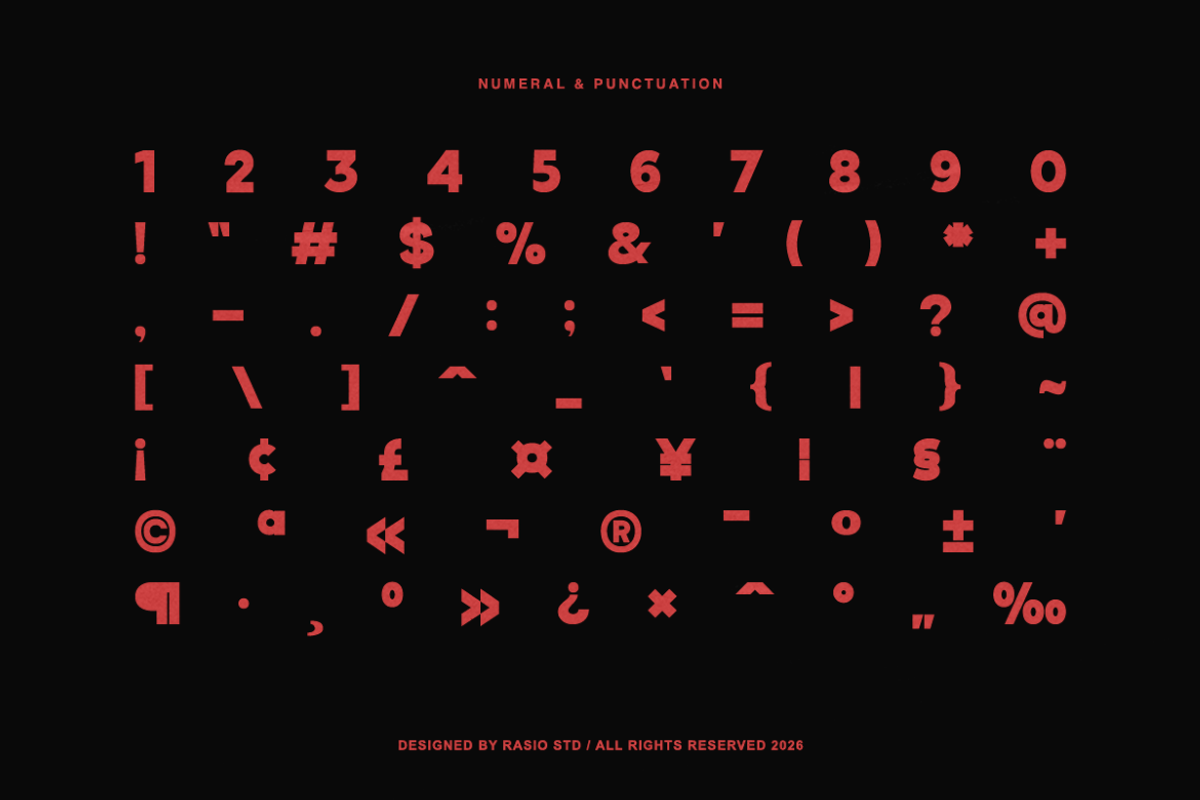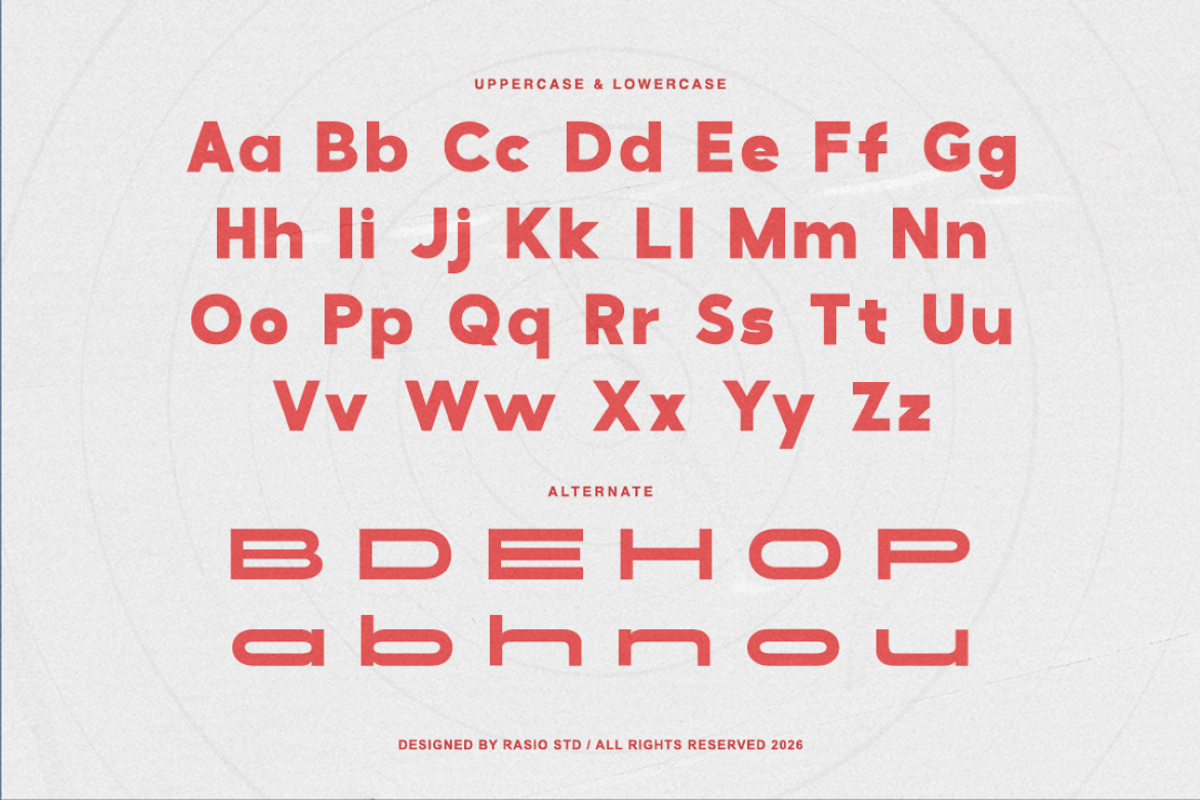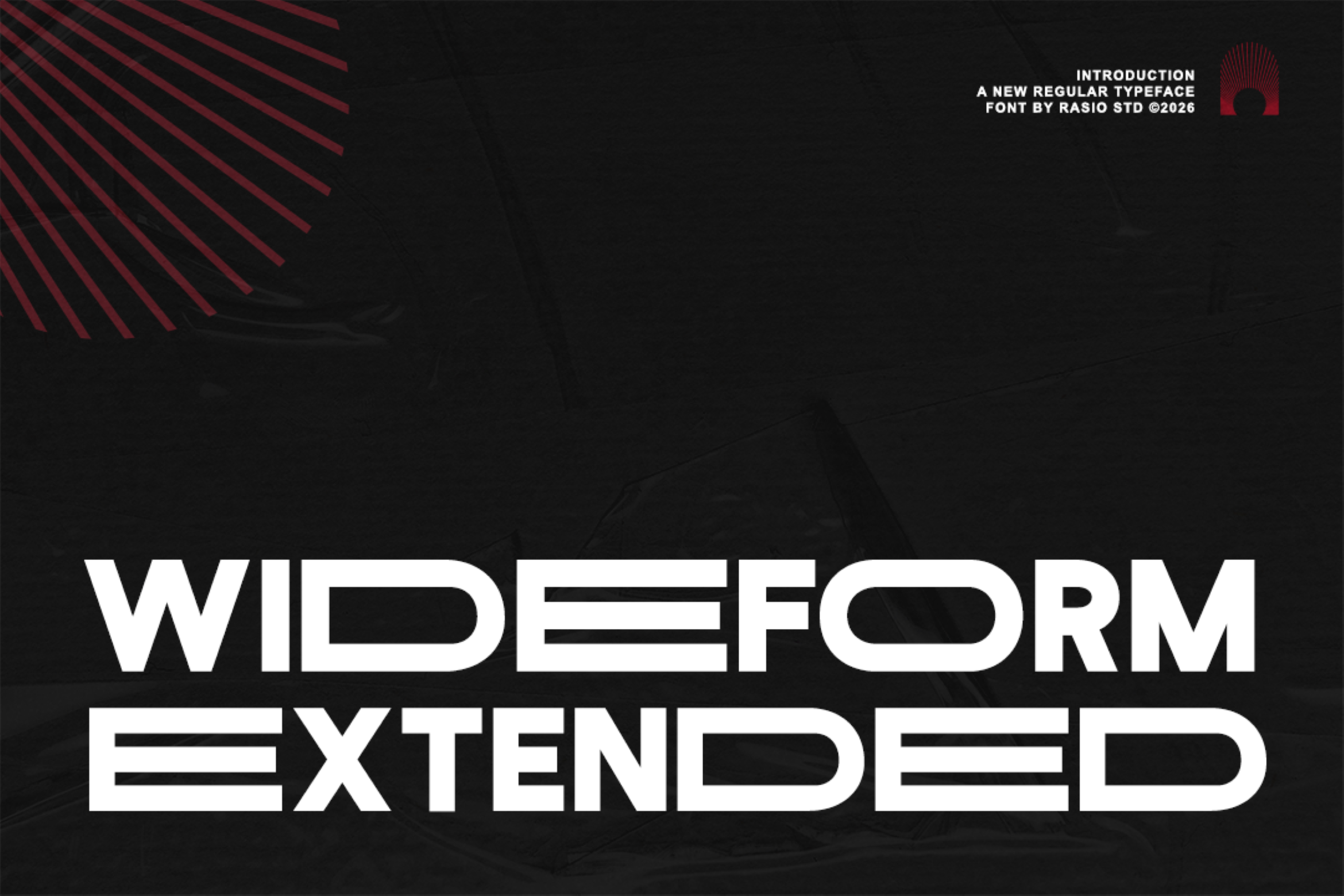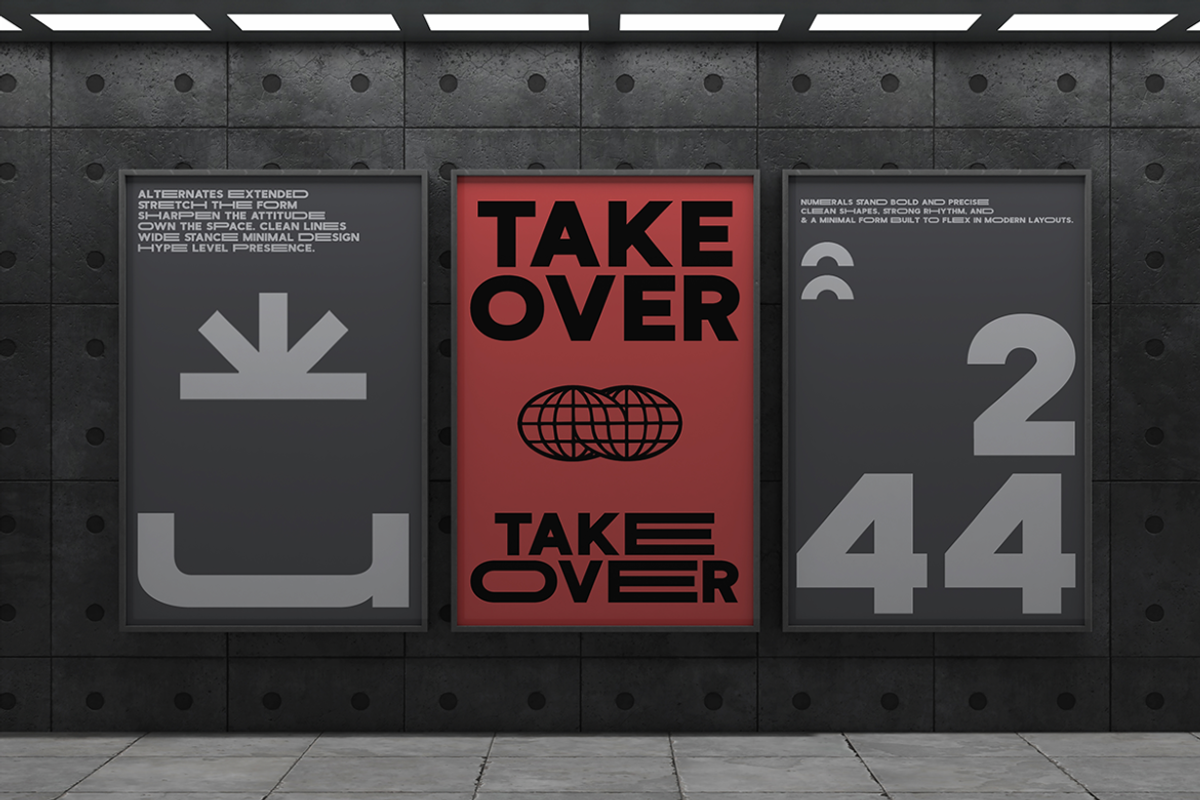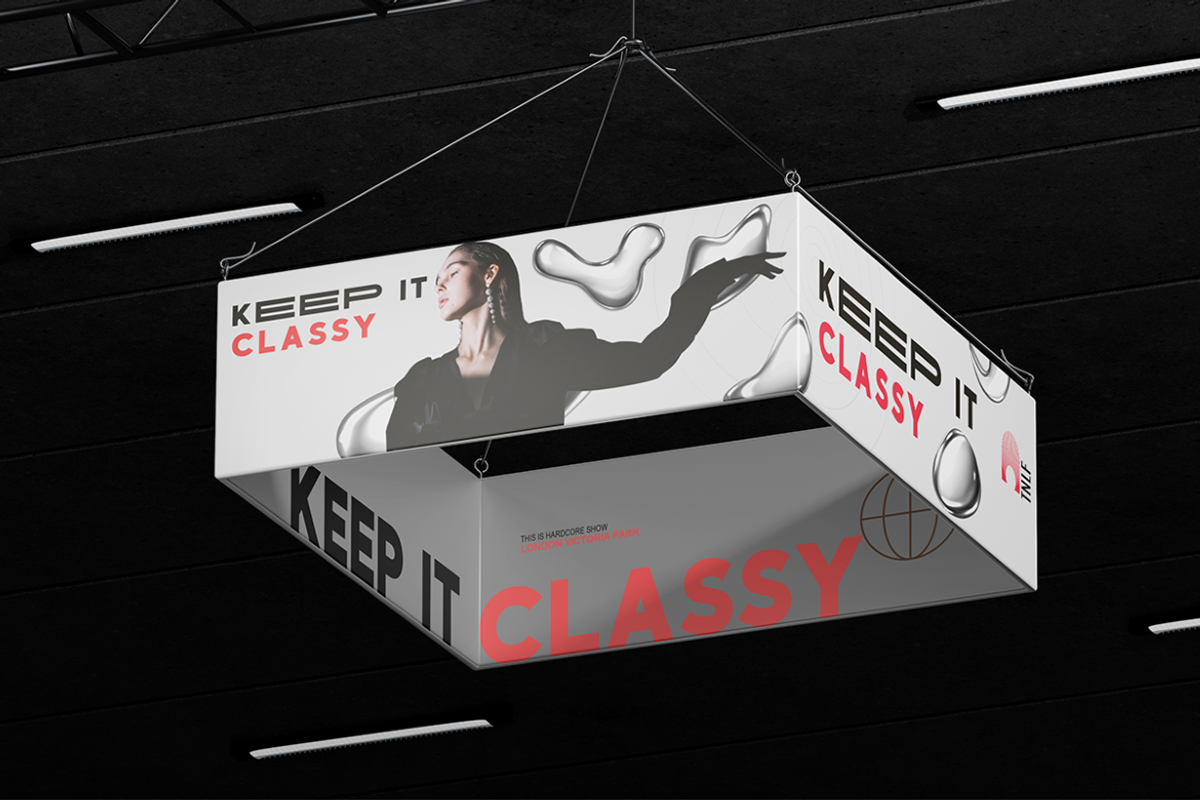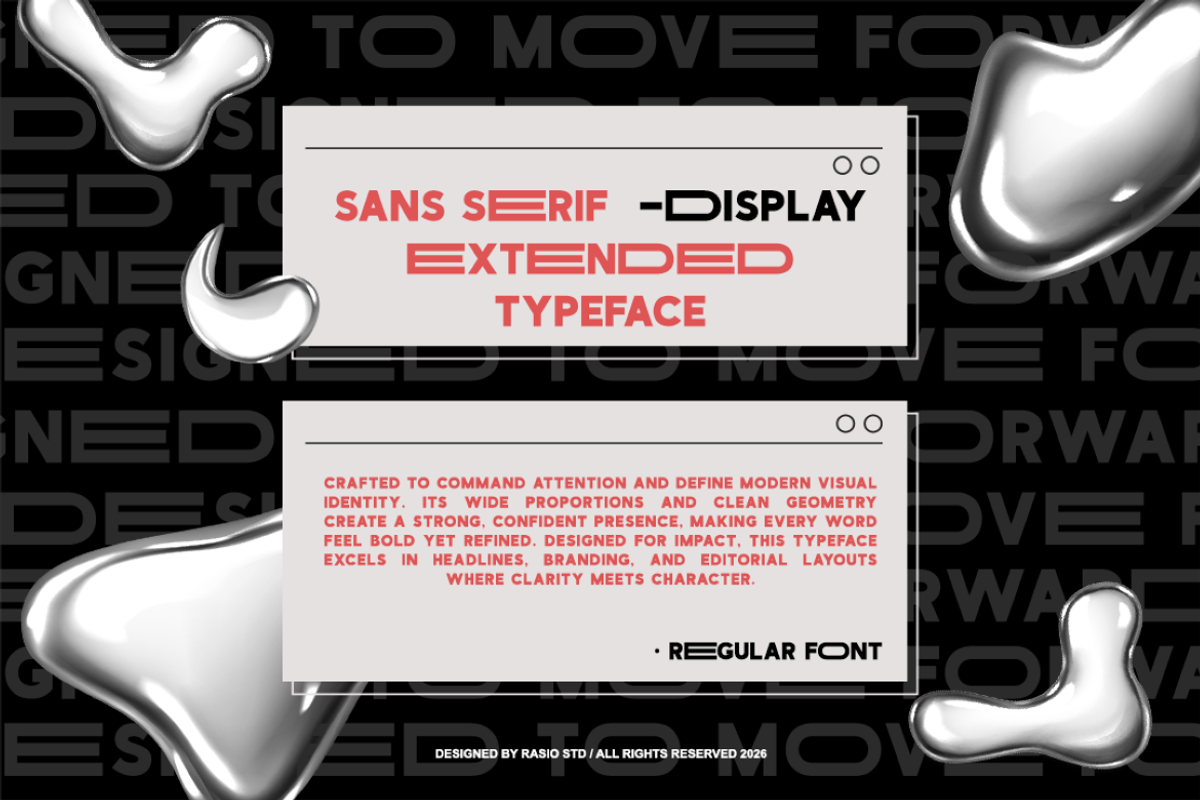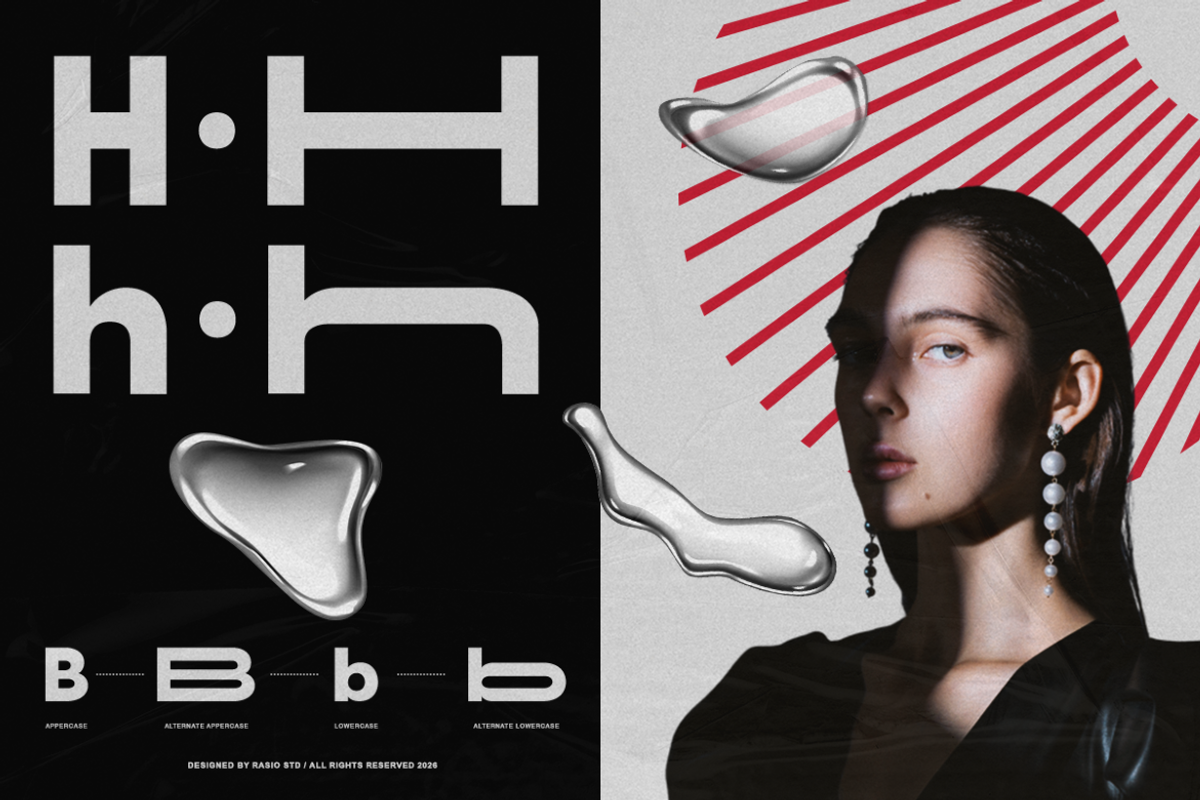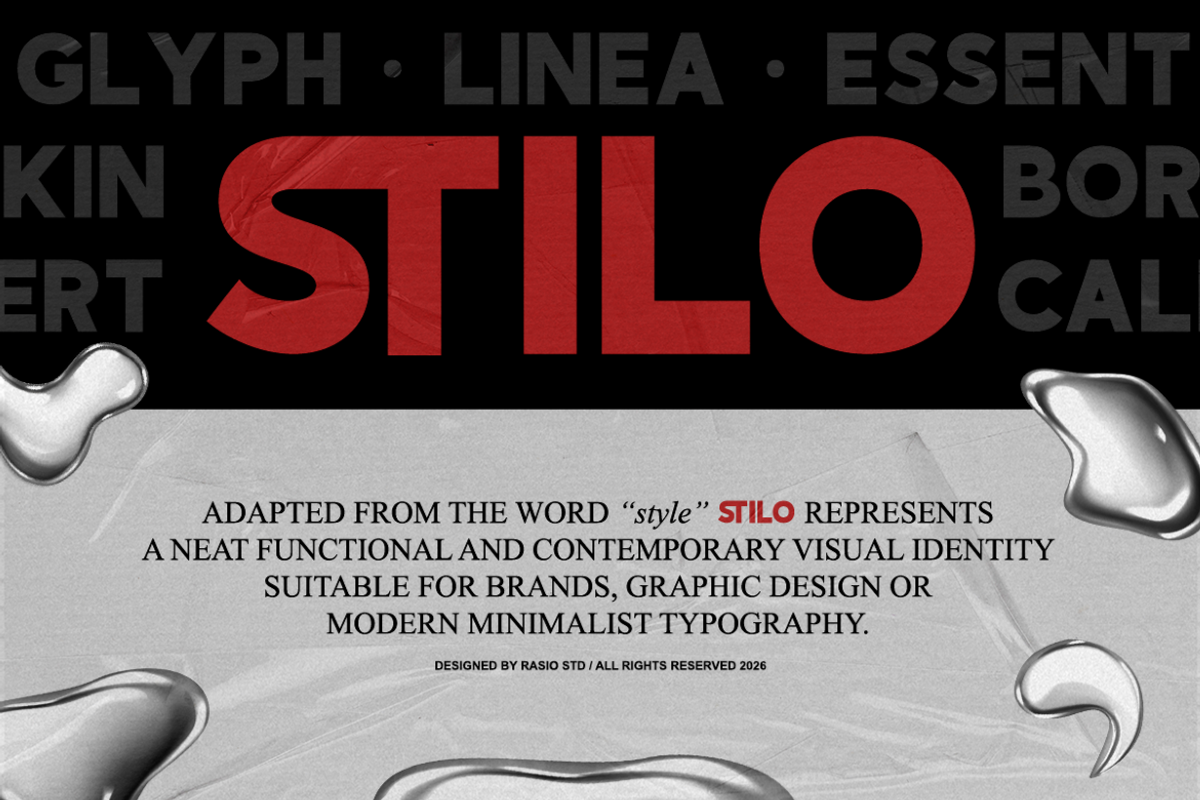
Wideform Extended Sans Serif Font
Wideform is an extended sans serif display font built with wide proportions, clean geometry, and a strong modern presence. The letterforms emphasize horizontal expansion and solid structure, creating a confident and commanding visual rhythm. It includes uppercase, lowercase, numbers, punctuation, and alternate characters with consistent stroke weight and spacing.
Relevance and Use Cases is perfect for modern branding systems, technology-focused visuals, posters, headlines, and editorial layouts that require strong horizontal presence. It works well for digital campaigns, product showcases, UI headers, motion graphics, and visual identities that aim to feel bold, confident, and forward-looking.
- Extended sans serif design with wide proportions
- Clean, minimal letterforms emphasizing strong horizontal presence
- Smooth curves and open shapes for clarity at large sizes
- Consistent stroke weight with stable visual rhythm
- Spacing optimized for headlines, display layouts
- Brand identity systems that require a bold, modern, and confident visual presence
- UI/UX headers, hero sections, and interface titles for tech and digital products
- Posters, editorial headlines, and graphic layouts with strong horizontal impact
- Product packaging and promotional visuals with a clean, futuristic aesthetic
- Social media graphics, banners, and marketing materials designed to stand out
Create bold visual impact with Wideform’s wide and modern typographic voice